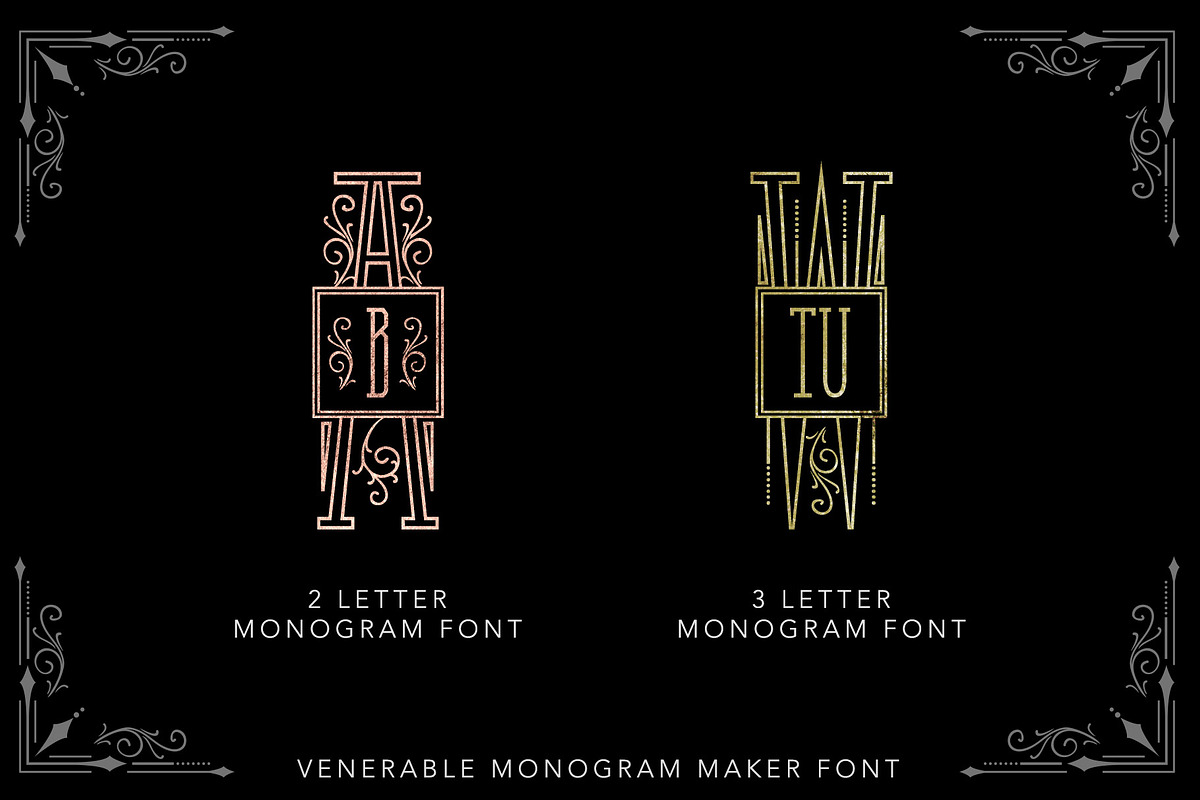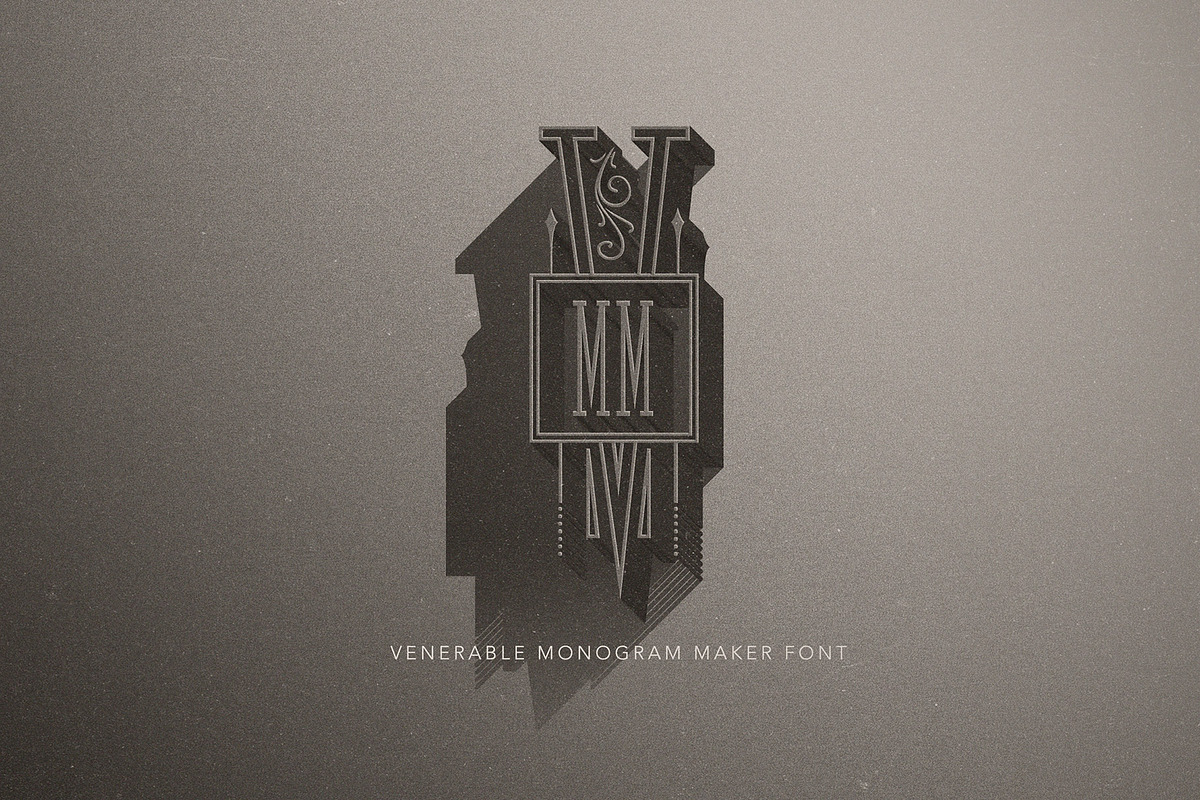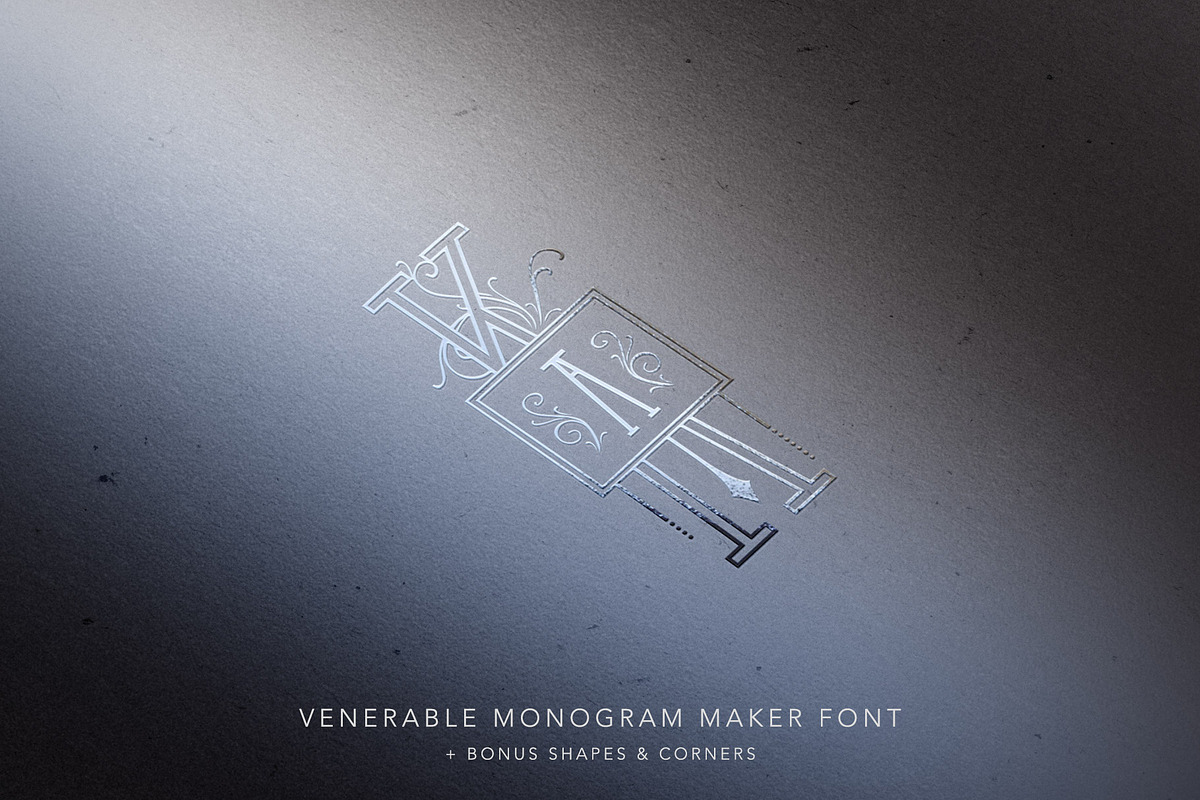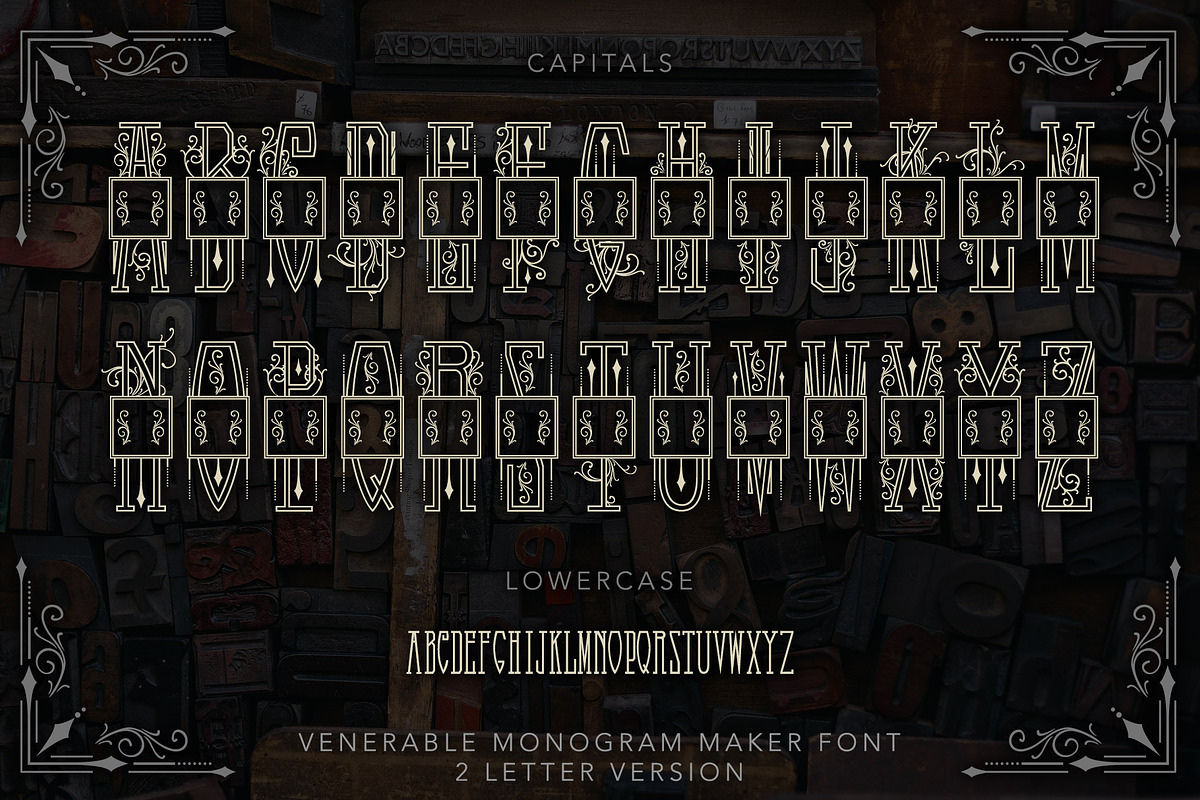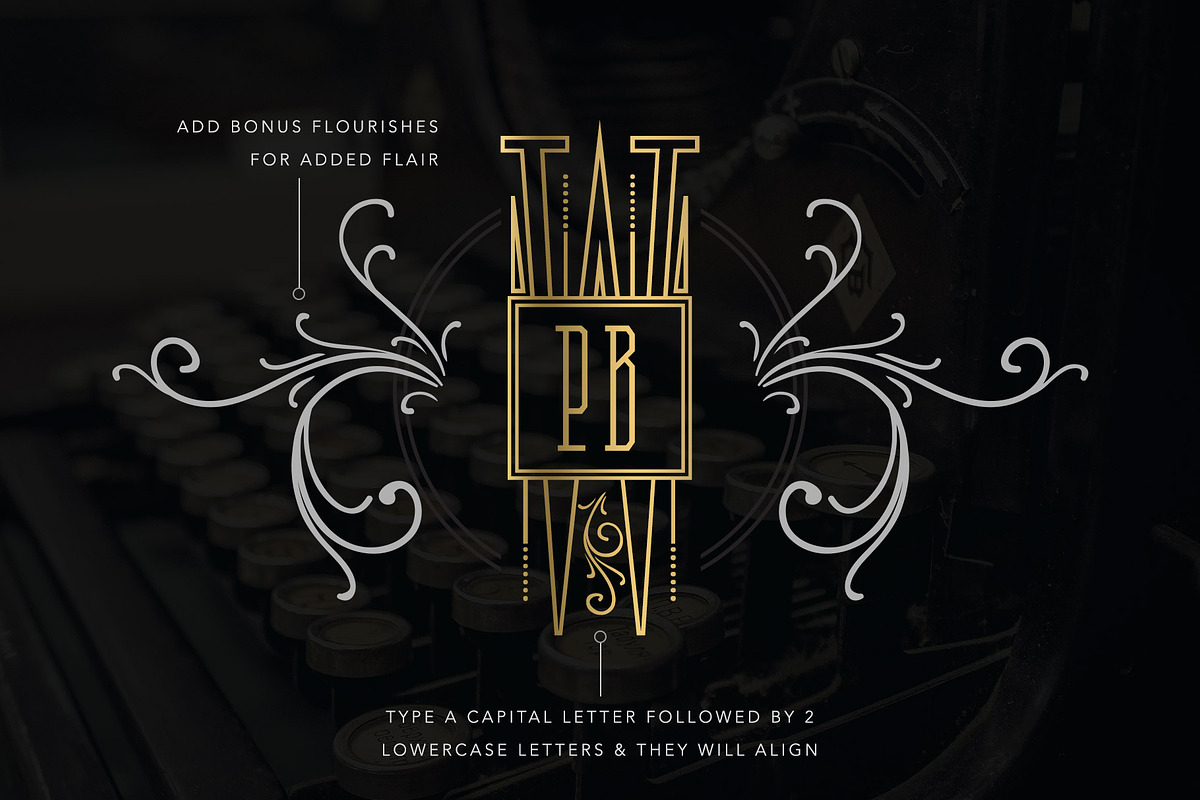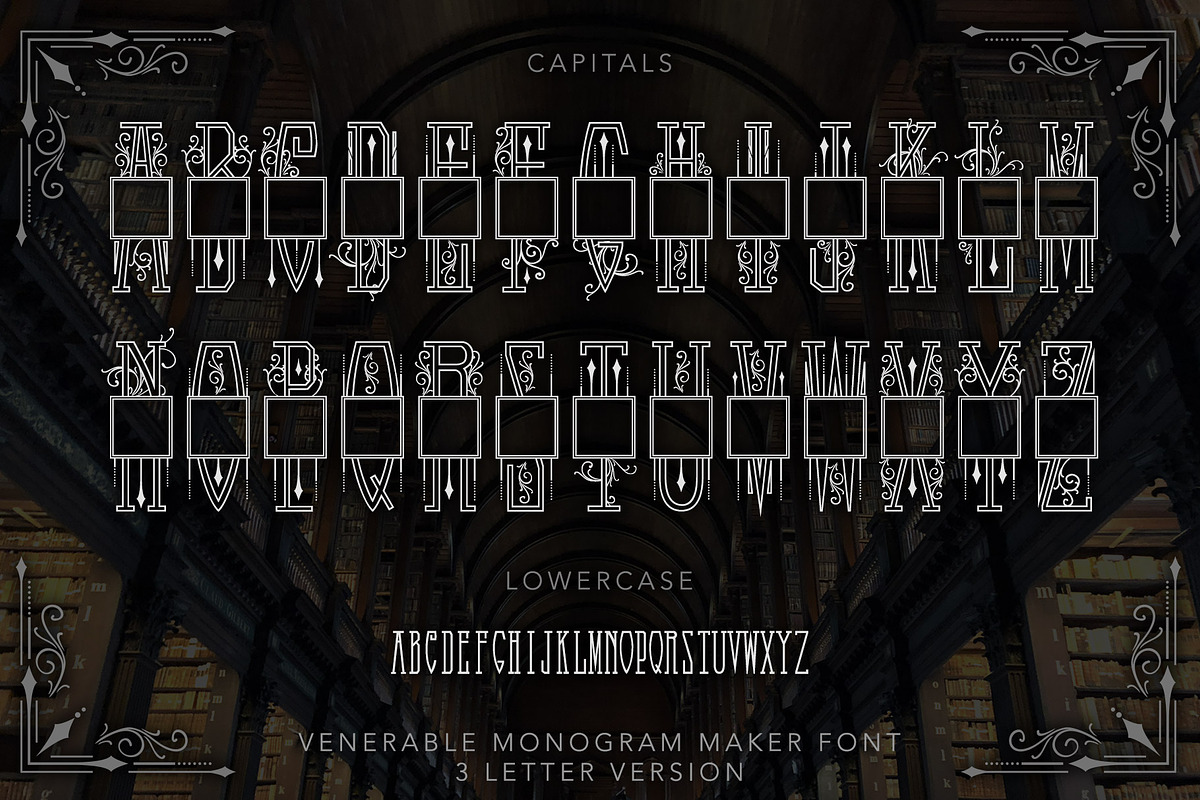
Venerable Monogram Maker Font
The Venerable Monogram Maker Font is a unique set of two display fonts that will instantly create vintage-inspired two or three letter monograms for your logos or designs. Art Deco and Nouveau styles were the inspiration.
Simply type in a capital letter for the large framed letter followed by either one or two lowercase letters (depending on which you prefer), and they will automatically align! As a bonus, hand-drawn flourishes, corners and line elements and ornaments are also included. These are not provided as part of the font, but in separate vector and png files.